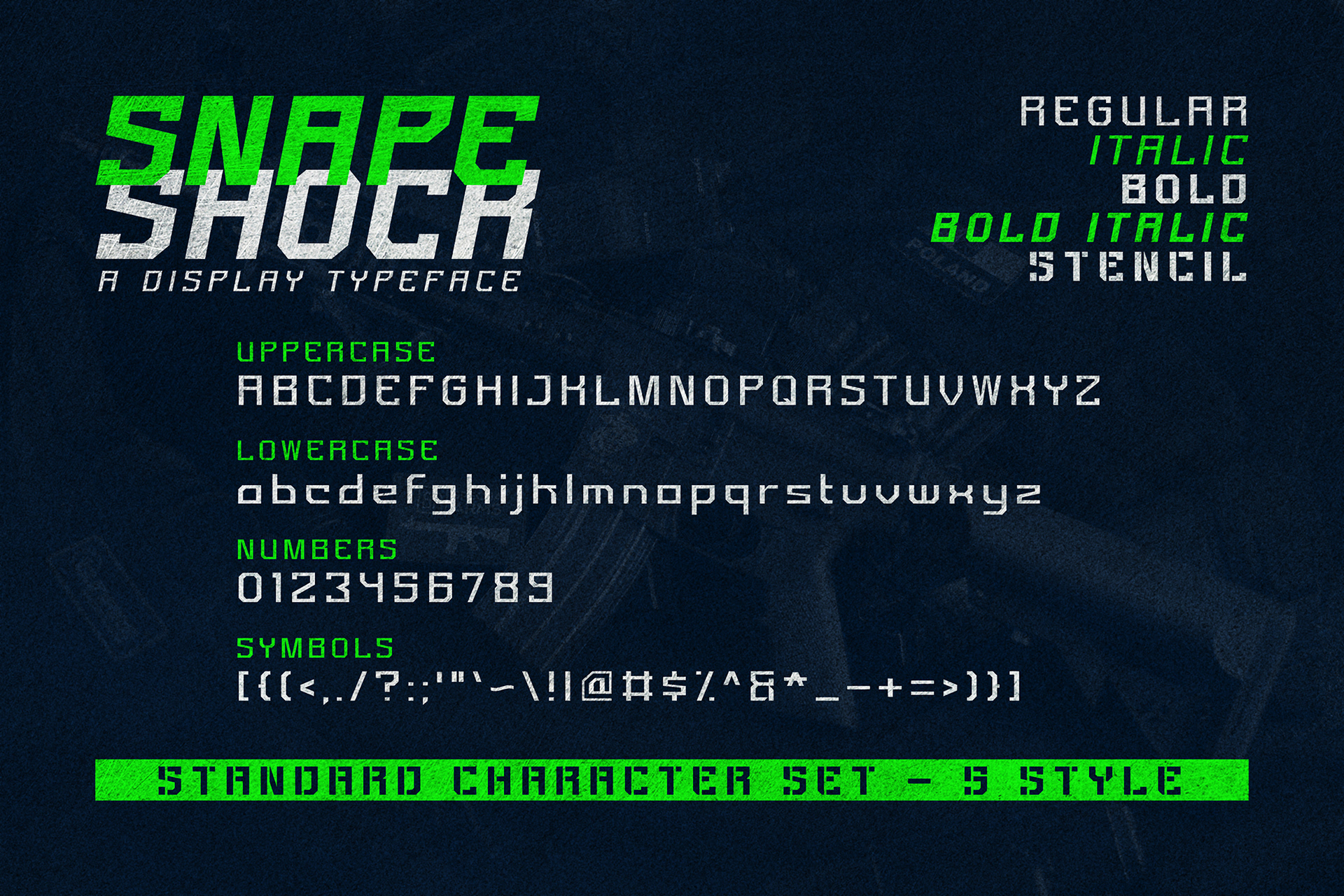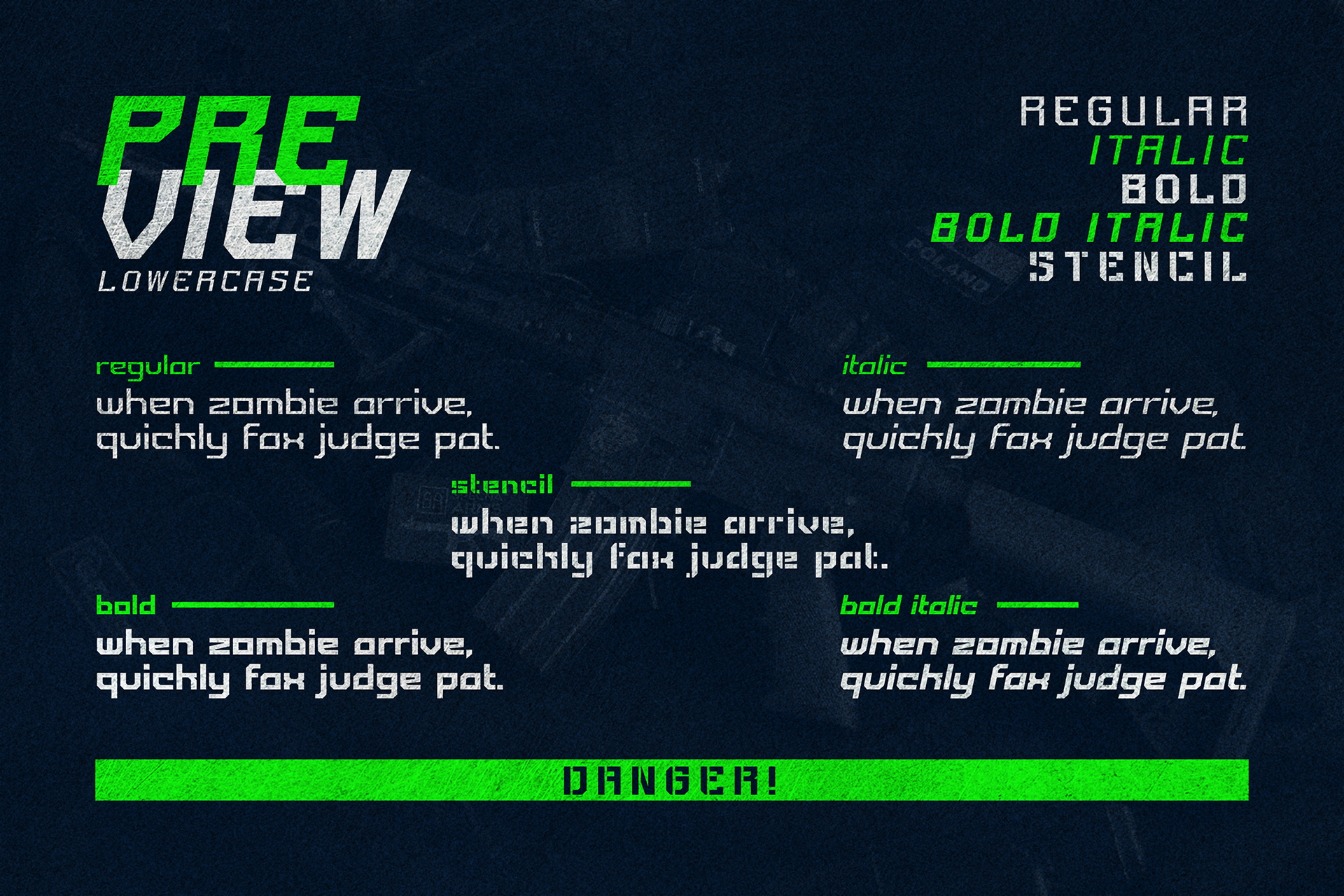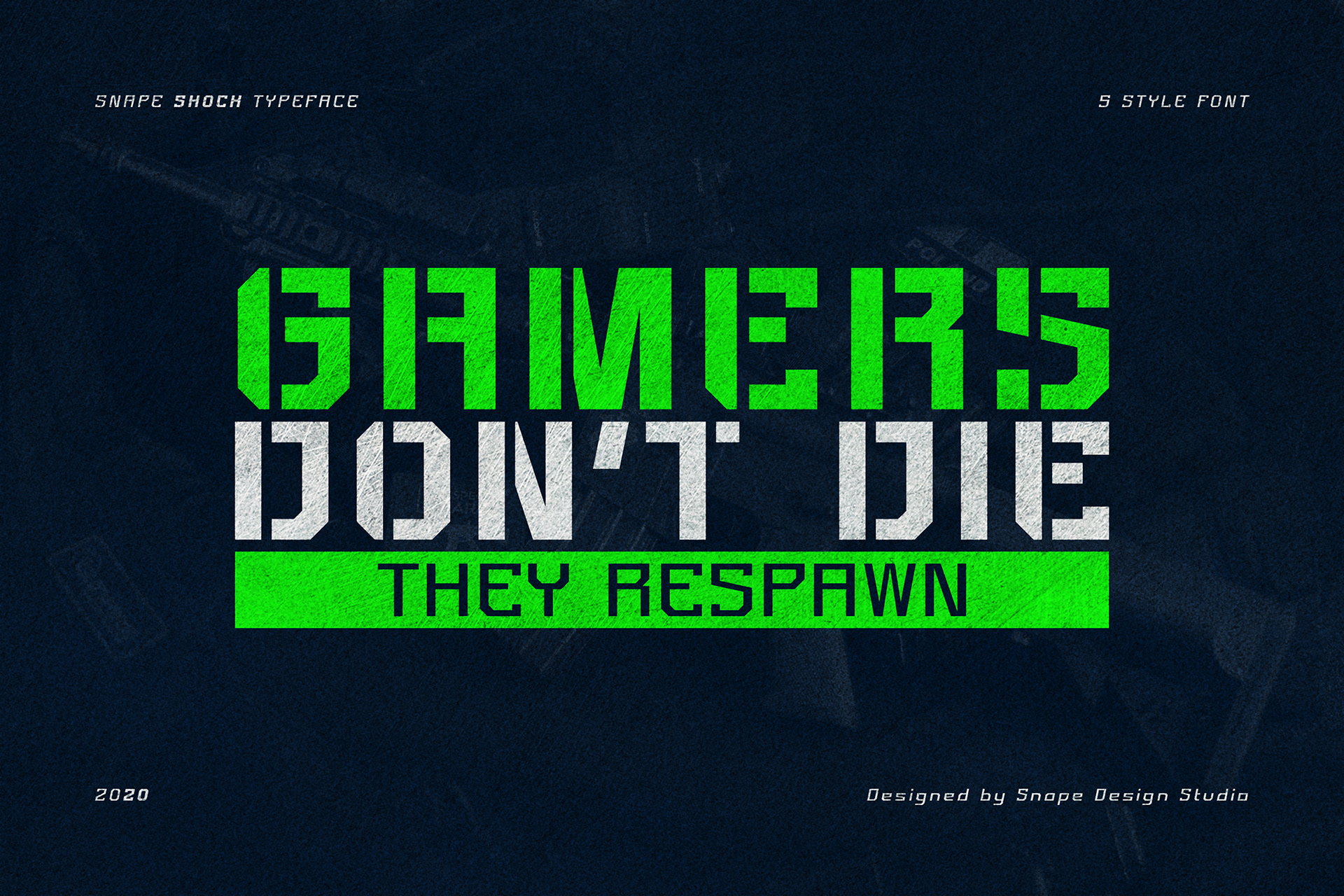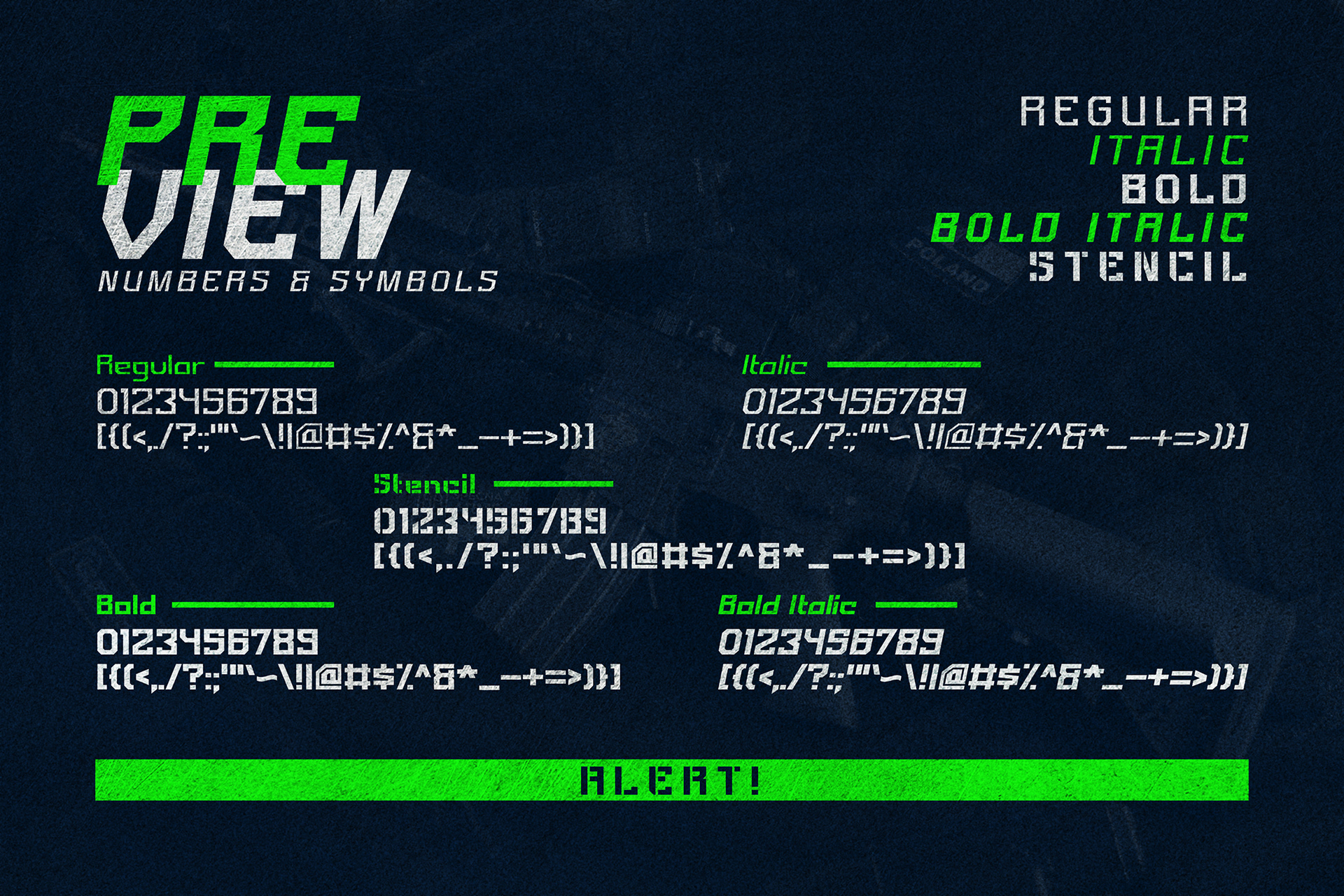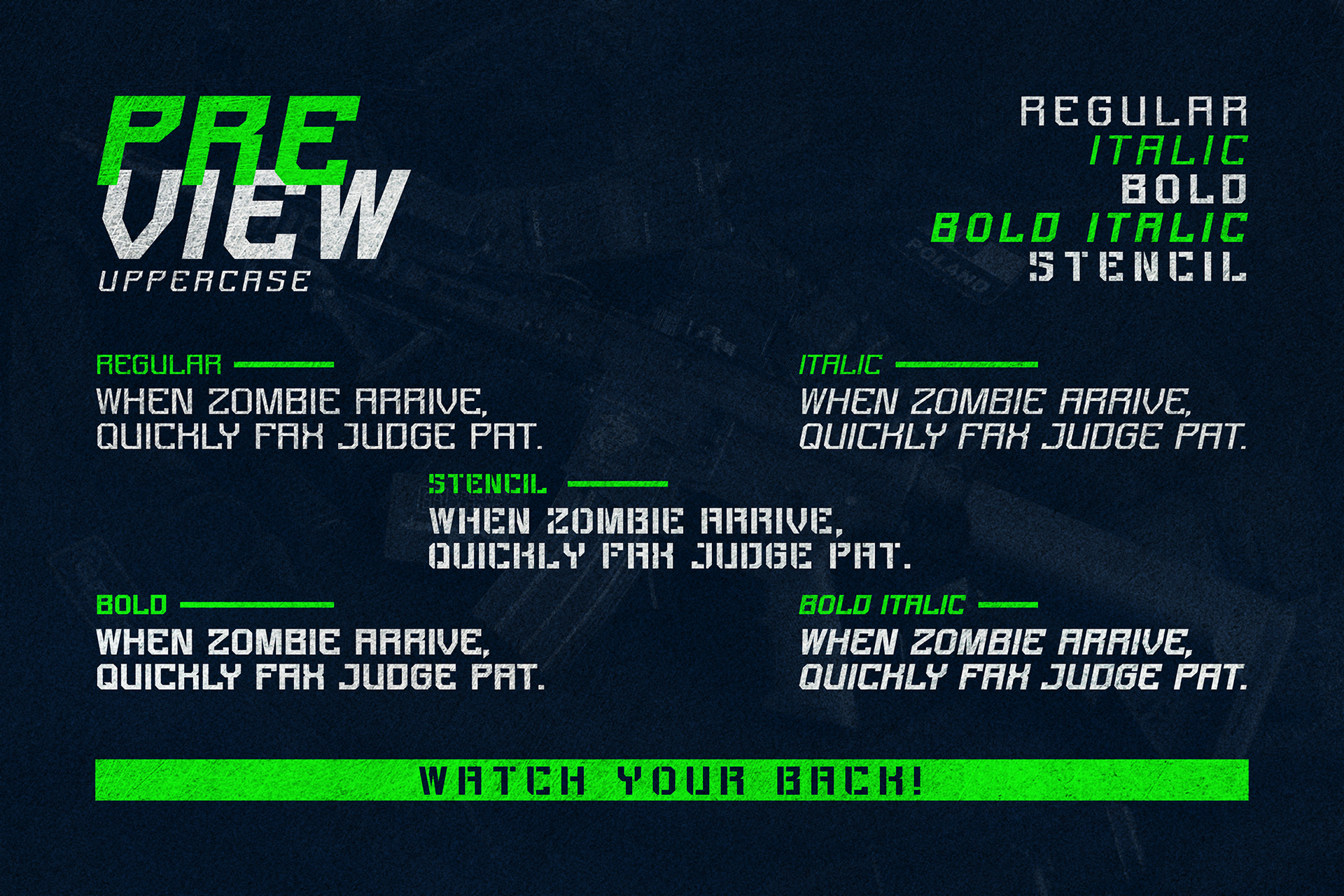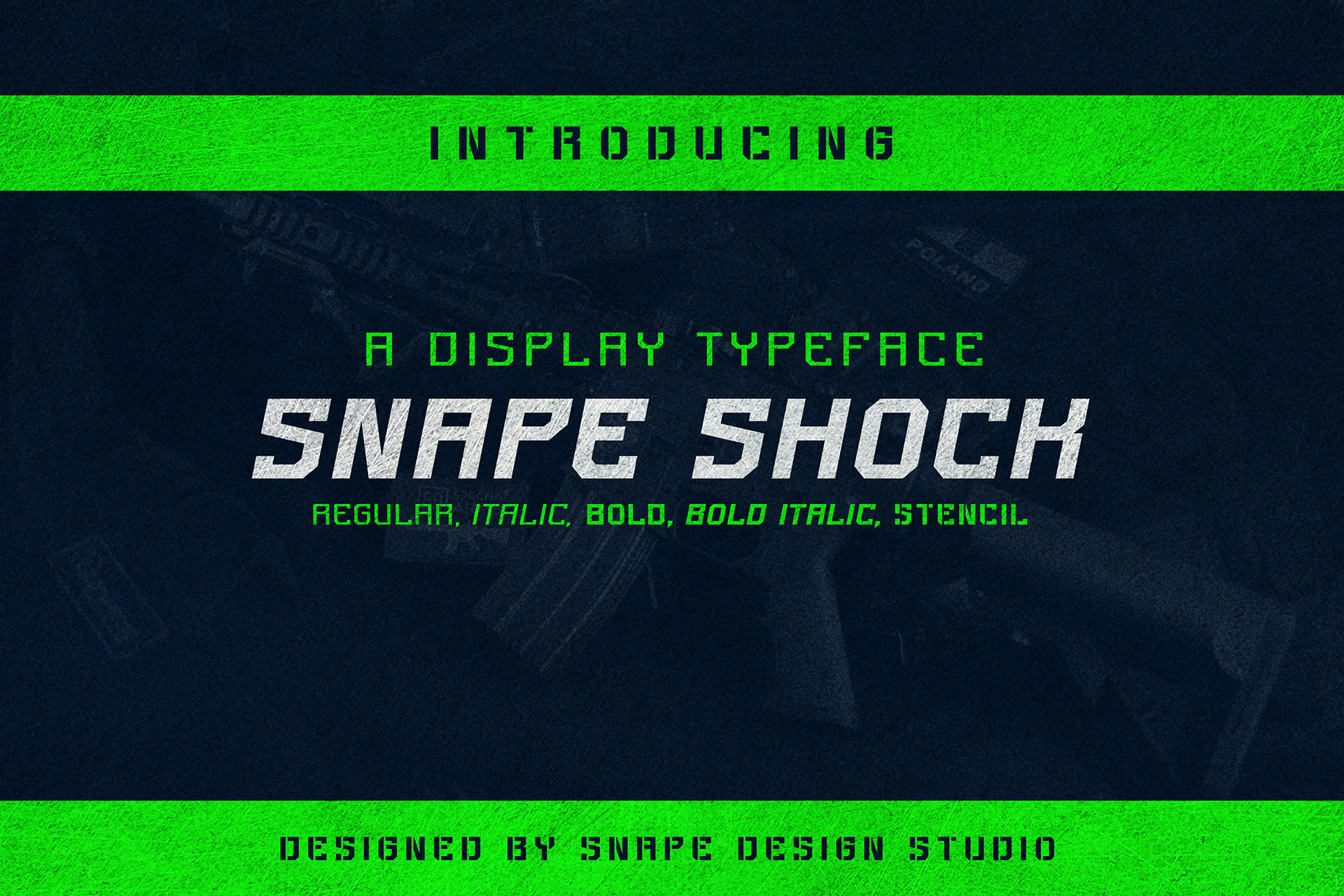
Snape Shock is a bold and authentic display font. It celebrates abstract shapes in all their eclectic brilliance. Add this font to your creative ideas and notice how it will make them stand out! Suitable for sport design, team, jersey, league, movie, documenter, film, logo, poster, game, book cover, headlines, title and many more projects.